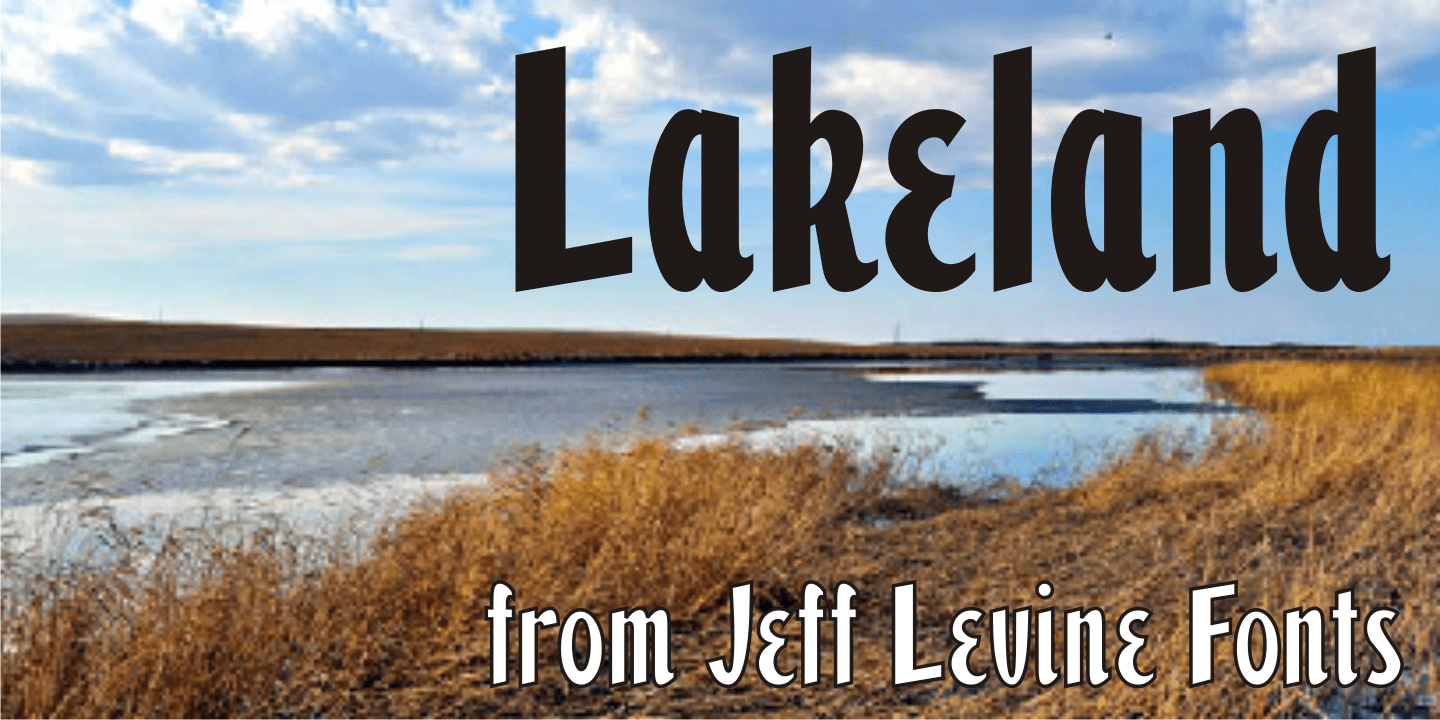
Lakeland
Lakeland JNL was inspired by lettering seen on a vintage container of Yankee brand motor oil.
Originally all-caps on the package, the remaining characters were developed to expand on this casual semi-script design which was popular during the 1940s.